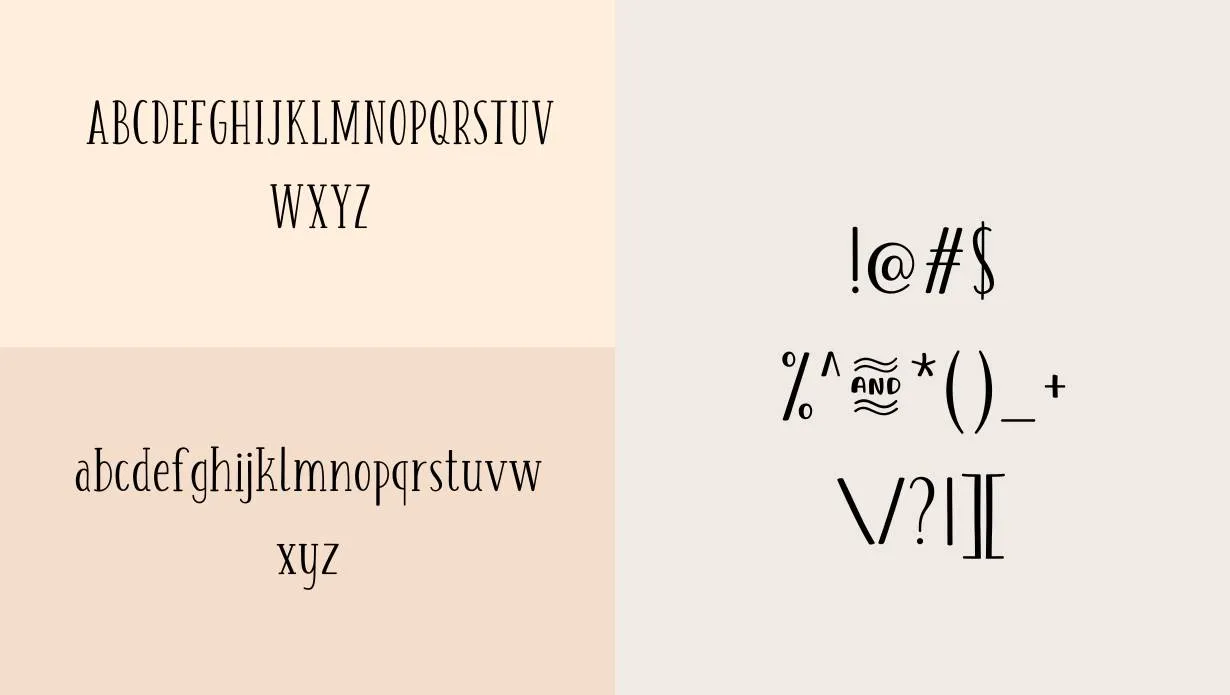
Honey Jam Font is a fun and creative script typeface, perfect for unique branding, children’s items, and projects that aim to evoke a fun and imaginative atmosphere.
Its informal and friendly style adds a touch of personality to your designs.
| Name | Honey Jam Font |
| Designer | Shaped Fonts |